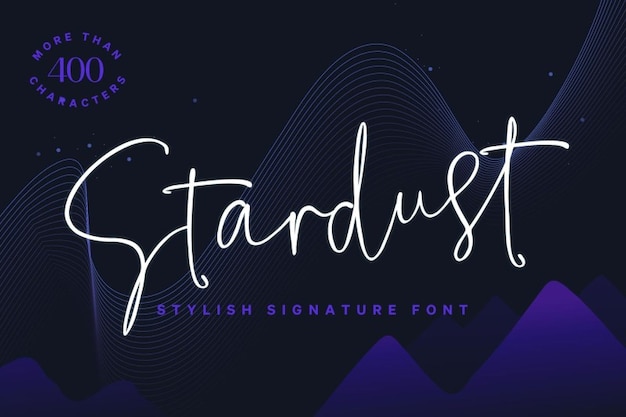
Stardust Signature Font
Drizy Studio
Stardust Signature is the embodiment of handwritten lettering at its most stylish. This font is like capturing someone's artistic signature and infusing it into your designs. With each letter, you get those flowing, intricate strokes that lend an air of elegance and a personal touch to your projects. It's the ideal choice for anything that requires a dash of uniqueness and charm, from invitations and greeting cards to branding and signage. Stardust Signature doesn't just stand out; it stands apart, making your text an artful expression of your creativity and individuality.